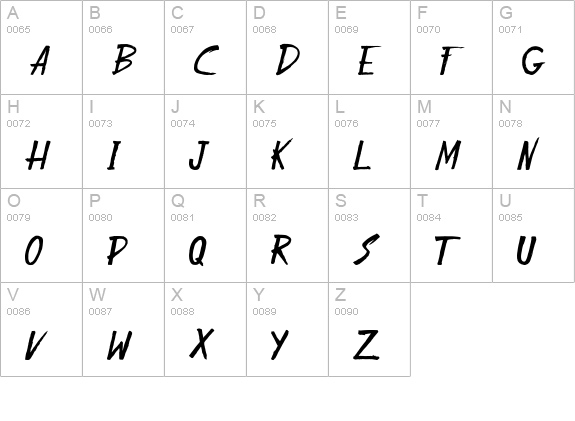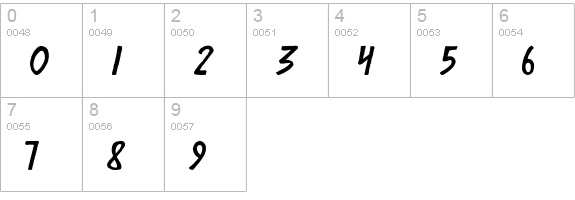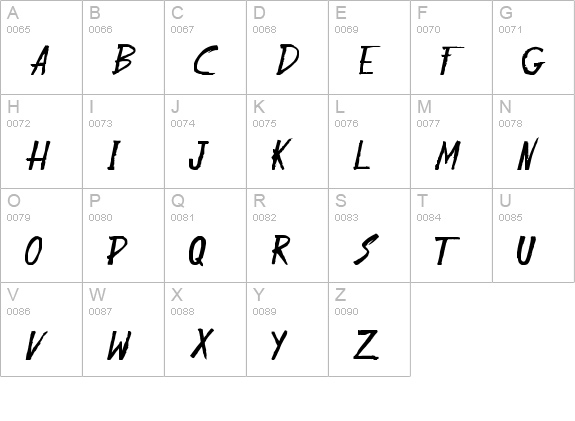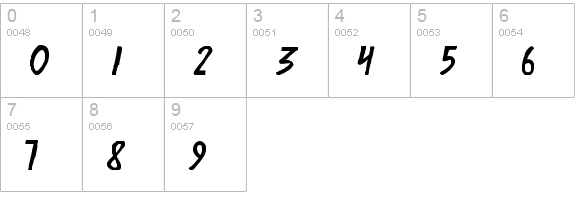
Rainfall Font Details
Introducing Rainfall font, a beautifully crafted typeface that brings a touch of elegance and sophistication to your projects. With its unique design and flowing curves, Rainfall is perfect for adding a touch of class to invitations, branding, logos, and more. This versatile font is sure to make your text stand out and leave a lasting impression. The best part? Rainfall font is completely free to download at FontsMarket.com. So why wait? Add a touch of style to your designs with Rainfall font today!